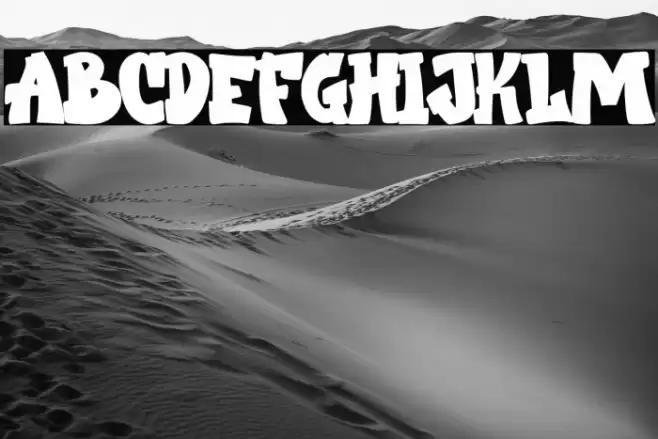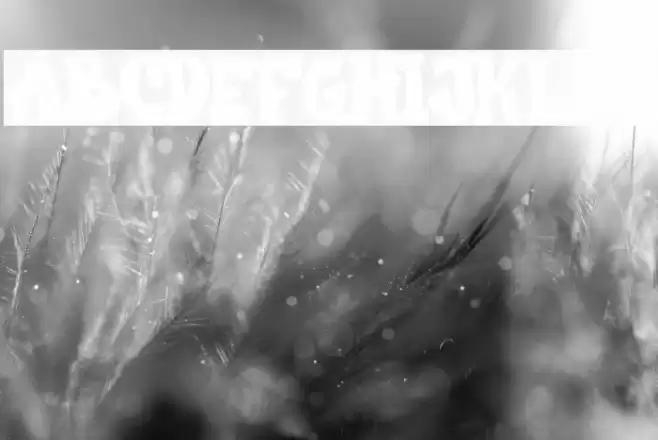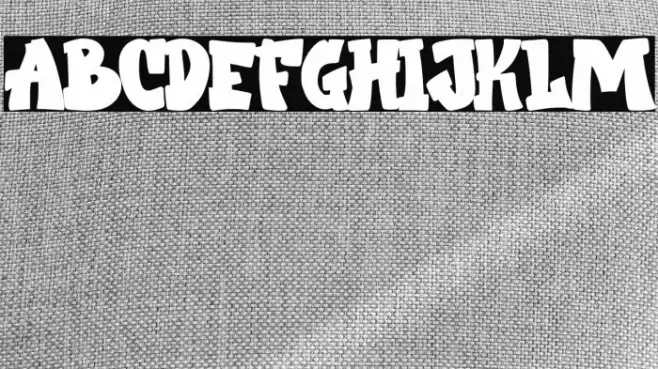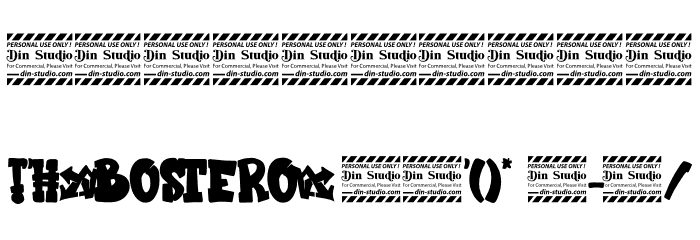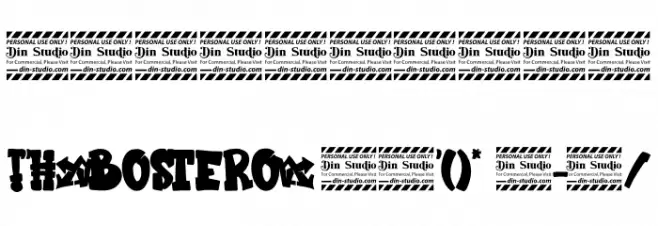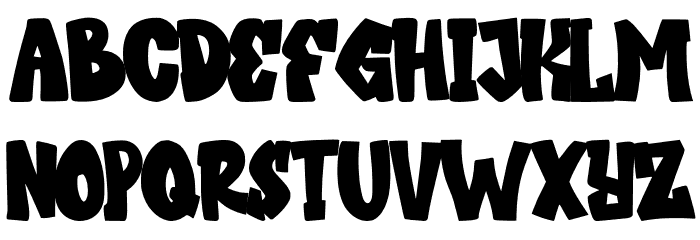
Bostero Personal Use Font
Bostero Personal Use Description
This font features a bold and dynamic style with a playful, graffiti-like appearance. The letters are thick and chunky, with irregular edges that give them a hand-drawn feel. The uppercase and lowercase letters maintain a consistent weight, creating a cohesive look across the alphabet. The numbers and special characters follow the same design principles, ensuring uniformity. The overall aesthetic is energetic and eye-catching, making it suitable for projects that require a strong visual impact.
A bold, graffiti-inspired font with a playful and dynamic style from Uncategorized fonts.
- Overall Style: Modern, Urban